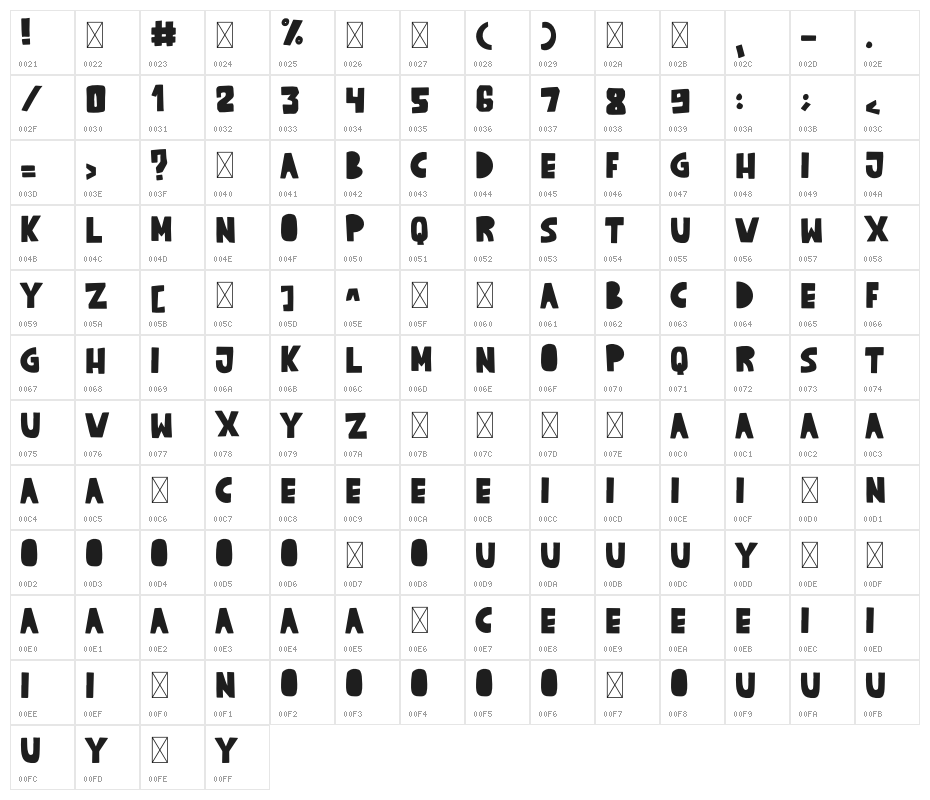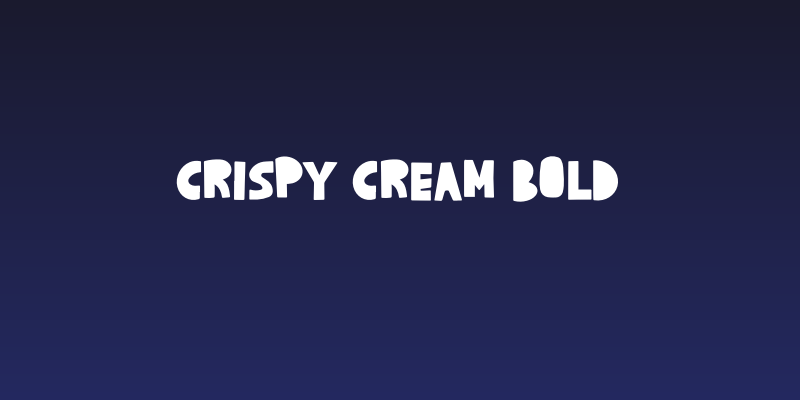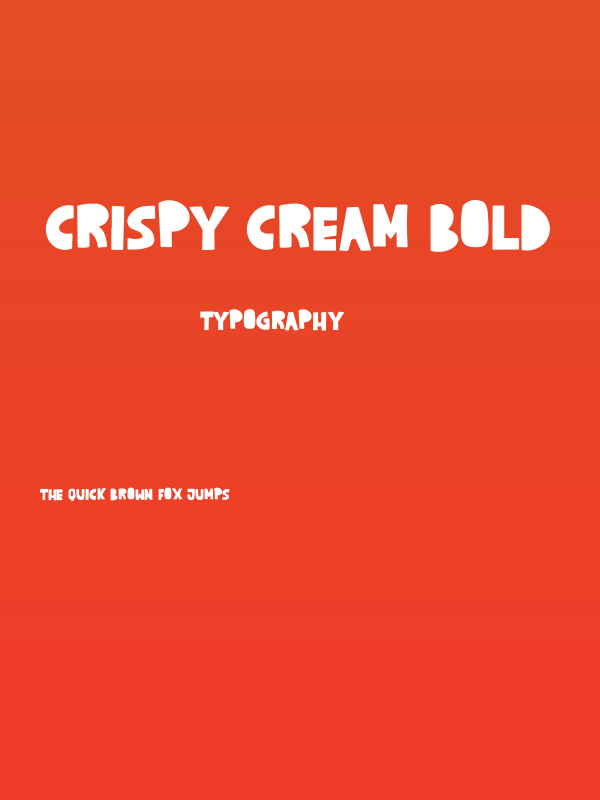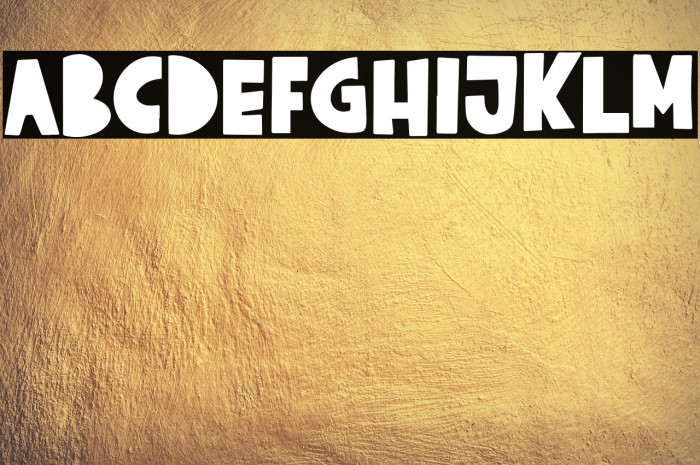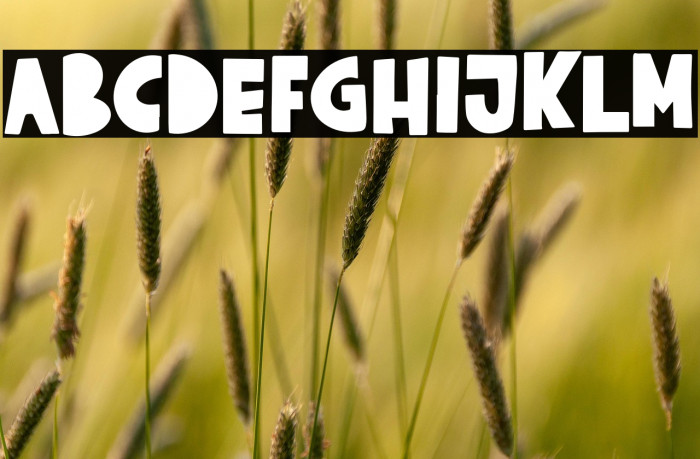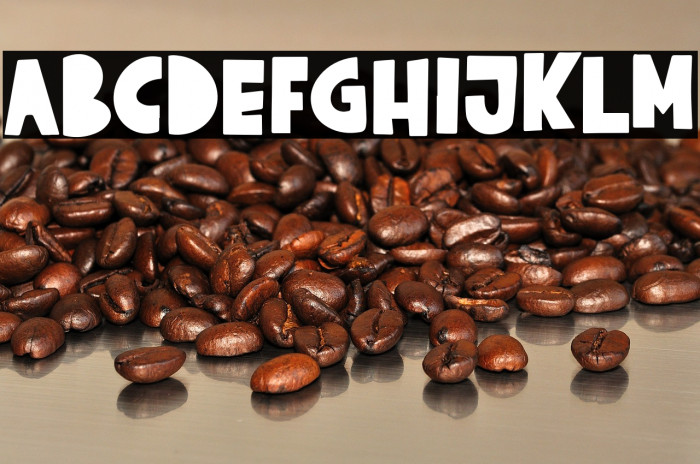
Crispy Cream Bold Font
Crispy Cream Bold Description
This font features a bold, playful style with a distinctly chunky appearance. The characters are rounded and have a hand-drawn feel, giving them a friendly and approachable look. The uppercase and lowercase letters maintain a consistent weight, contributing to a cohesive visual impact. The numbers and special characters share the same boldness, ensuring uniformity across all glyphs. The font's design is characterized by its thick strokes and minimal contrast, making it highly legible and impactful. Its whimsical nature makes it suitable for creative and informal applications.
| Proposed Projects | Ideal for children's books, playful branding, posters, and creative projects that require a fun and informal touch. |